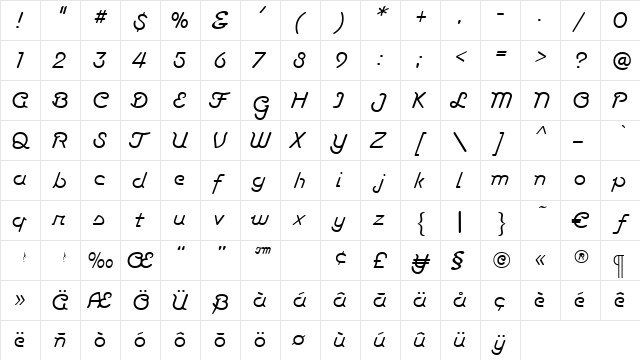
Tarantula Script RR Light
Design Context for Tarantula Script RR Typeface
Tarantula Script RR brings a calligraphic fluidity to the page — its connecting strokes and expressive curves give it an unmistakably human quality. Its slender proportions lend an understated elegance to any composition.
Font Pairing: Combine Tarantula Script RR with a simple geometric sans for maximum contrast — the tension between flowing curves and clean structure is a classic typographic pairing.
Pro Tip: Use Tarantula Script RR for short runs of text — names, titles, or taglines. Extended body copy in script faces tires the eye quickly.